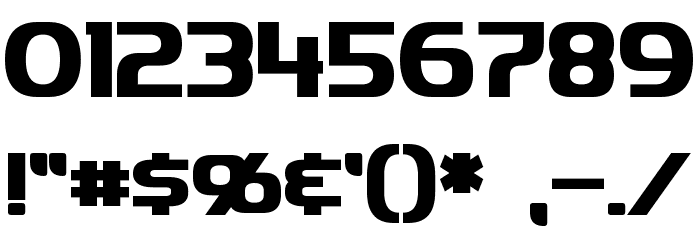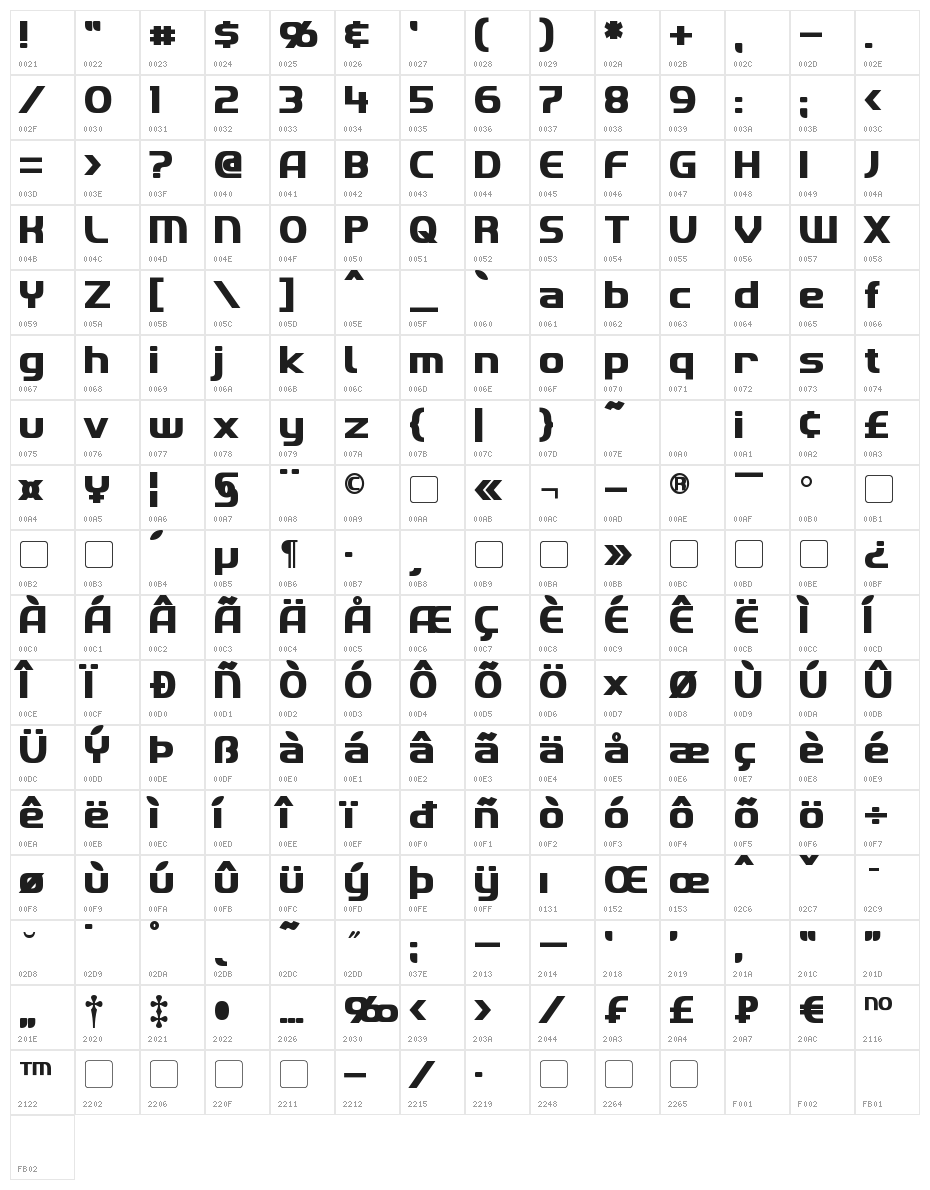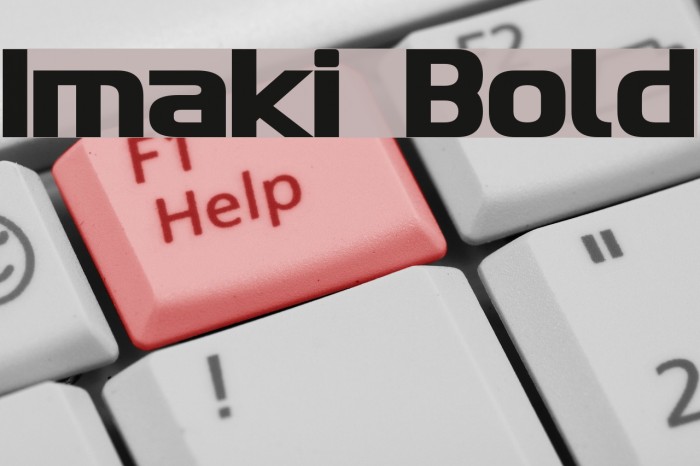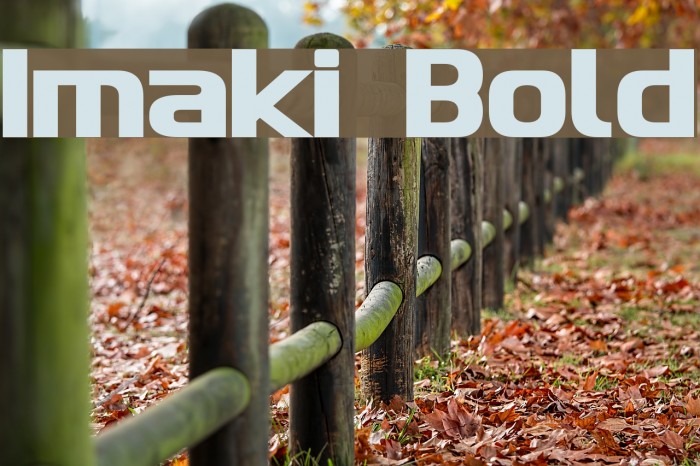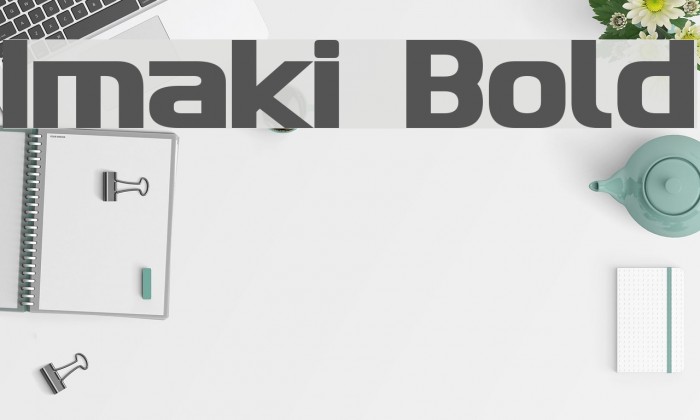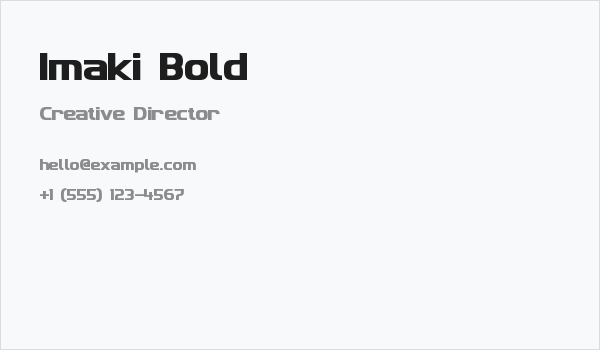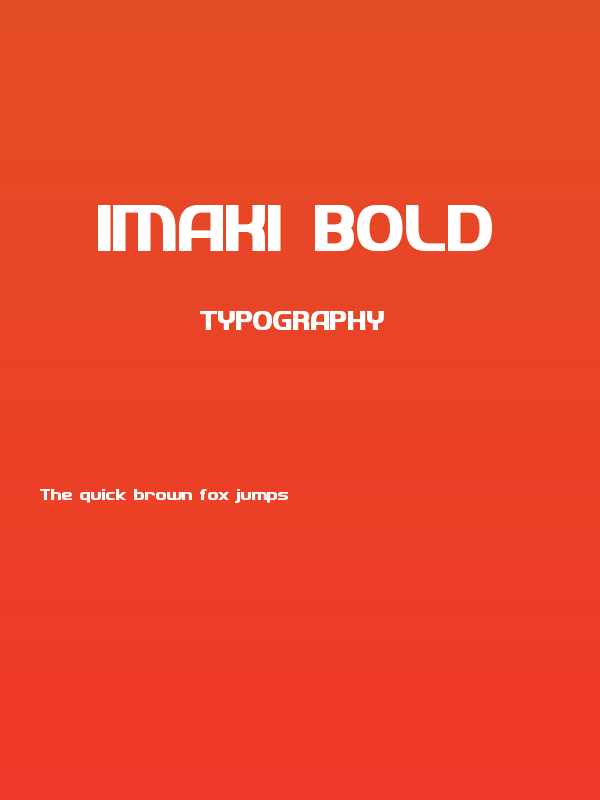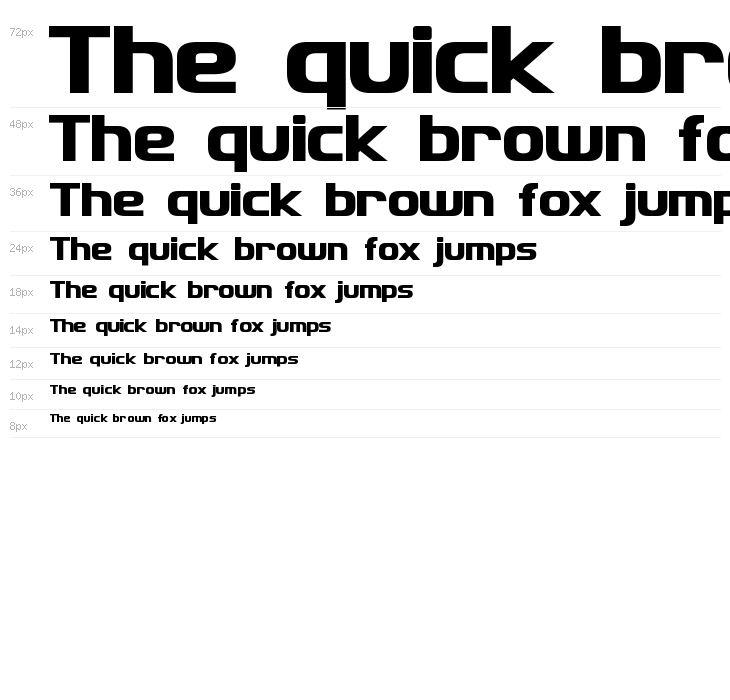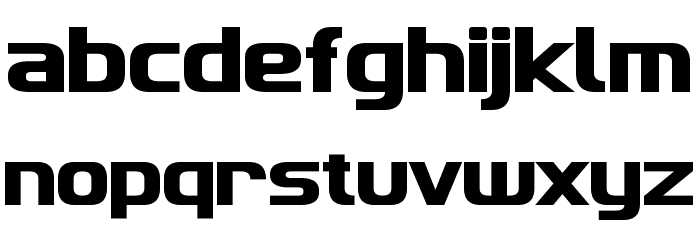
Imaki Bold Font
Imaki Bold Description
This font features a bold and modern design with a geometric structure. The characters are uniformly thick, providing a strong and impactful appearance. The uppercase letters are slightly rounded at the corners, giving a softened edge to the otherwise robust style. The lowercase letters maintain a consistent height, which complements the uppercase set. Numbers and special characters are designed with the same boldness, ensuring uniformity across all elements. The font's clean lines and contemporary look make it suitable for various design applications.